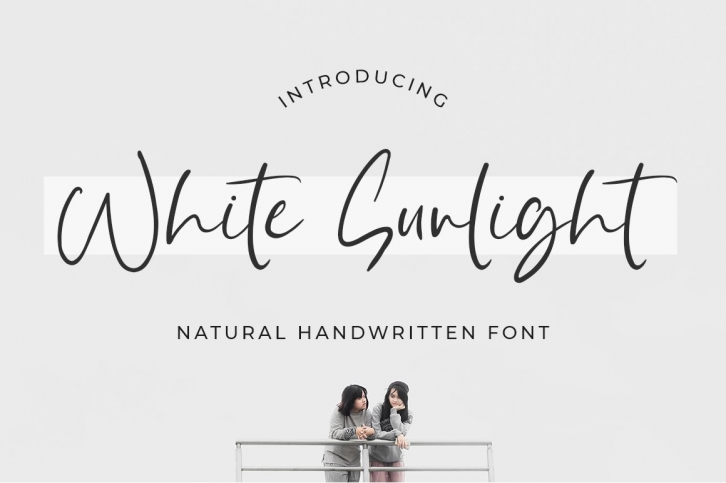
White Sunlight is a beautiful font that was designed by Bluestype Studio. It's a great choice for designers and creatives who need such a font. It was released on August 18, 2021 and the file size is 16.53 MB. White Sunlight may give a more youthful, expressive and casual look to your project. It is a very beautiful, refined, elegant, and high-quality font.